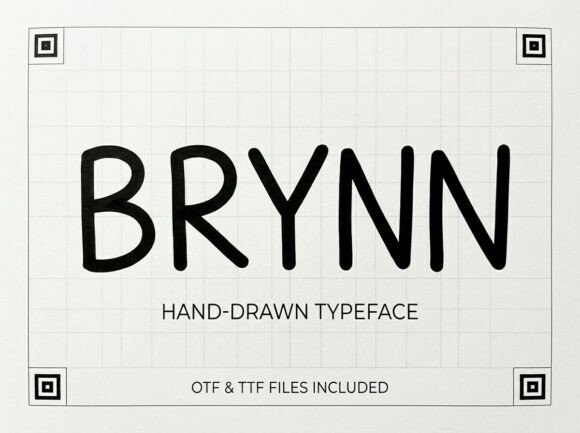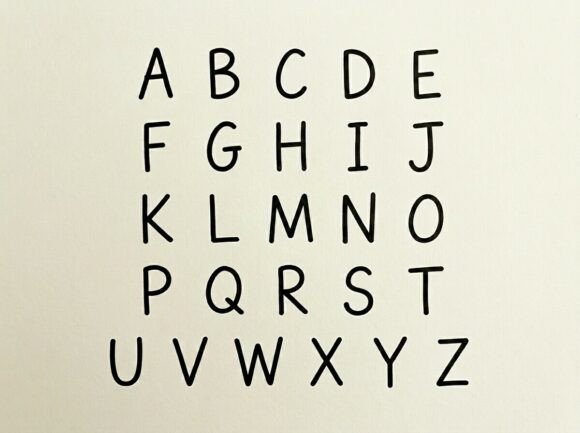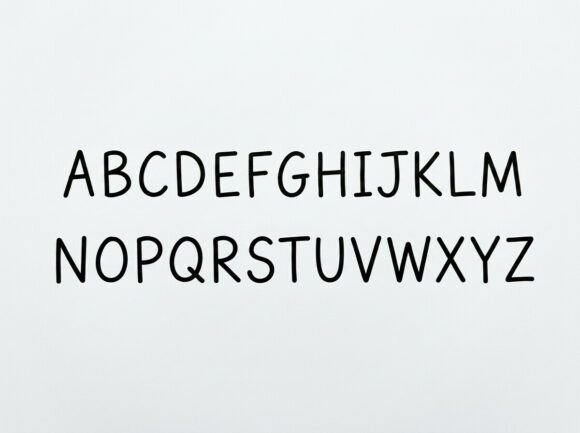
Brightening Up Your Design Game with the Perfect Font
Remember that moment when you’re brainstorming a new project and suddenly, a spark of creativity hits you? You envision the perfect typography, colors, and layout, and you just know that it’s going to be amazing. That’s exactly what the Brynn Font is designed to help you achieve – a stunning visual statement that sets your work apart from the rest.
Brynn Font is a show-stopping, all-caps display typeface that’s perfect for making a bold impression. Whether you’re working on a high-impact headline, a creative logo, or a decorative packaging design, this font is sure to bring your vision to life. Its unique artistic elements and strong visual personality make it a valuable addition to any designer’s toolkit, helping you to create professional and polished designs that truly stand out.
With the Brynn Font at your disposal, you’ll be able to elevate your designs to the next level and leave a lasting impression on your audience.
Brynn Font Key Features
- Font Family: Brynn Font is a sans-serif font family.
- Unique Characteristics: Features a clean, modern design with subtle rounded edges and open apertures, making it suitable for various applications, including digital signage, advertising, and editorial content.
Brynn Font Review
I recently had the chance to work with the Brynn font, and I must say it’s a great addition to any design project. ✨ One of the things that stood out to me was its versatility. It’s suitable for both body text and headings, making it a great choice for designers who want a single font to cover all their bases.
- ✨ Excellent legibility: The font is clear and easy to read, even at smaller sizes.
- ✨ Beautiful letterforms: The lettering is modern and sleek, making it perfect for contemporary designs.
- ✨ Wide language support: The font includes a wide range of languages, making it a great choice for global designs.
However, there are a few limitations to keep in mind. ⚠️ The font can feel a bit generic at times, and it may not be the best choice for projects that require a lot of personality or flair.
- ⚠️ Limited expressiveness: The font’s clean design can make it feel a bit too safe or boring for certain projects.
- ⚠️ Not ideal for distressed or vintage designs: The font’s modern design may not be the best fit for projects that require a more distressed or vintage look.
Overall, I think the Brynn font is a solid choice for designers who want a reliable, versatile font that can handle a wide range of projects. While it may not be the most exciting or expressive font out there, it’s definitely a good addition to any design toolbox.
Brynn Font is ideal for:
- Custom typography
- Editorial design